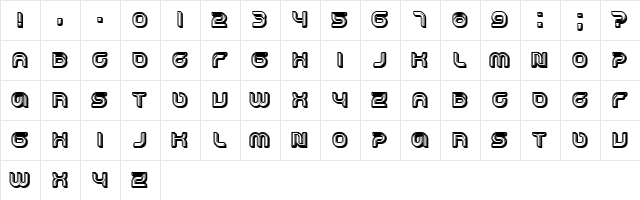
Dropped 3D Regular
Design Context for Dropped 3D Typeface
Dropped 3D is a composed and adaptable typeface that performs quietly and consistently across a wide range of design contexts.